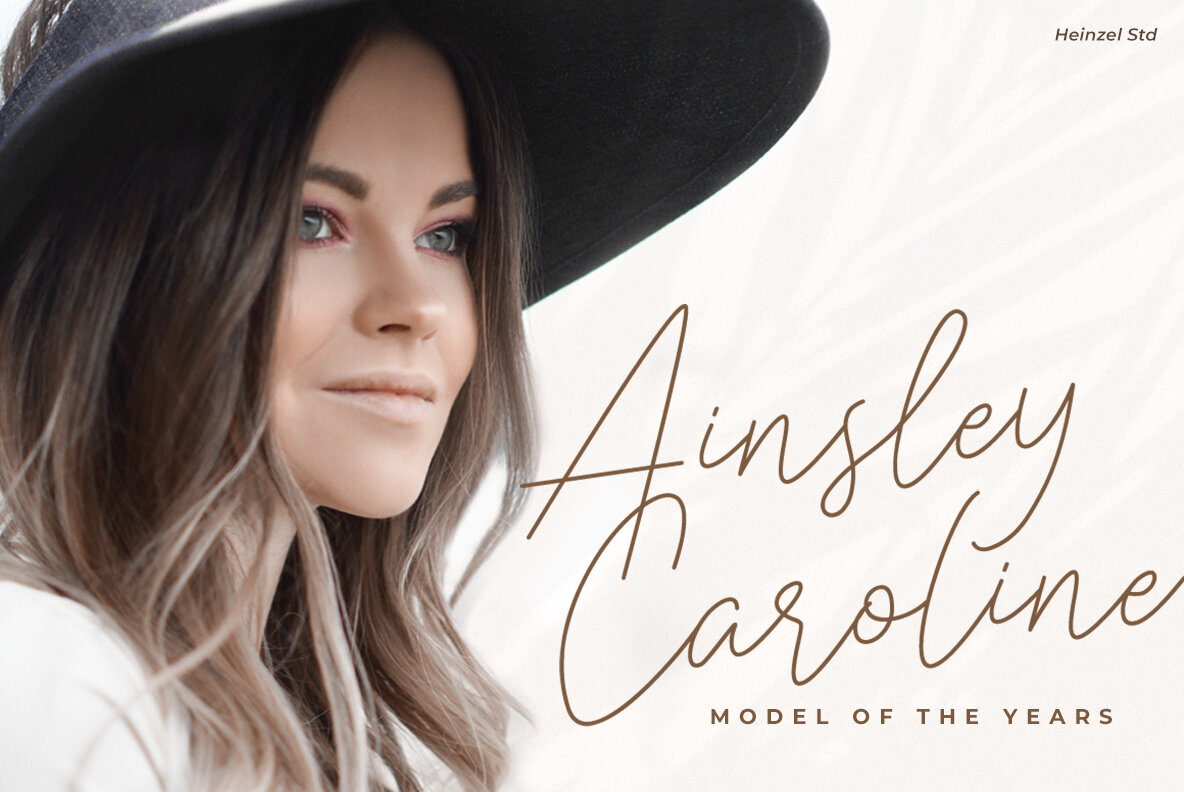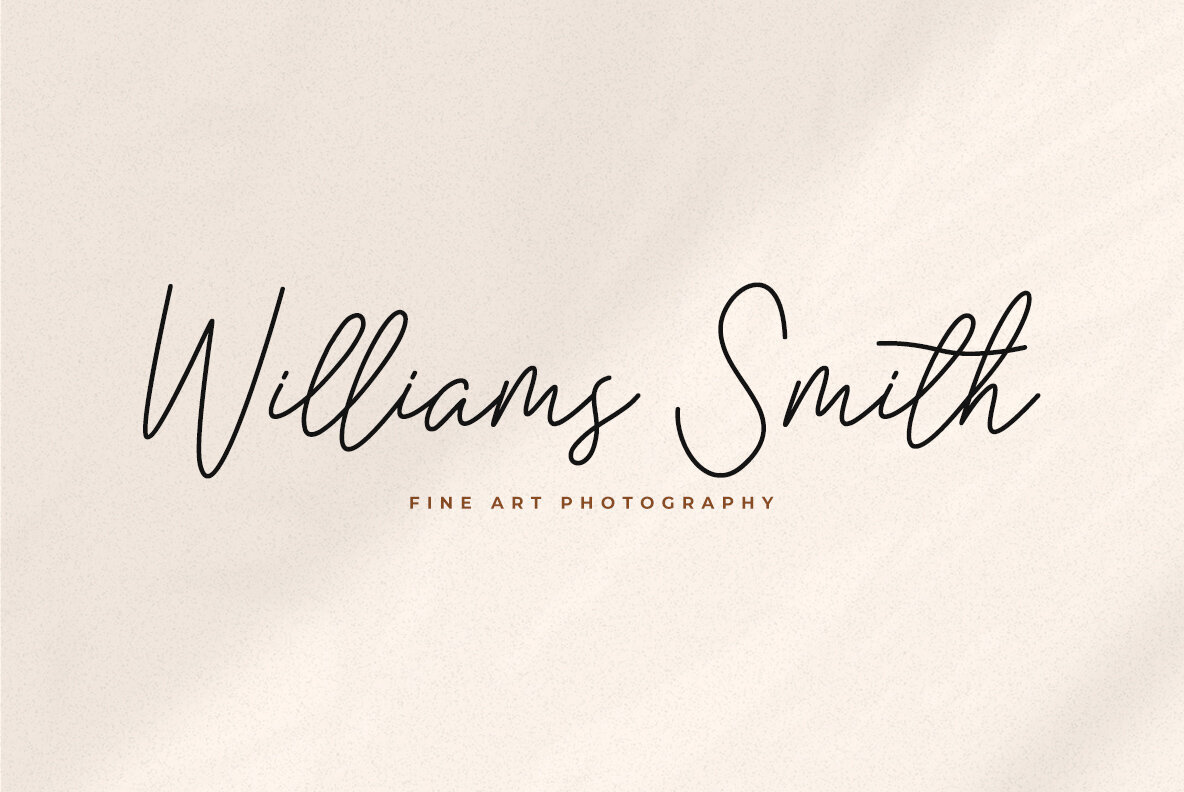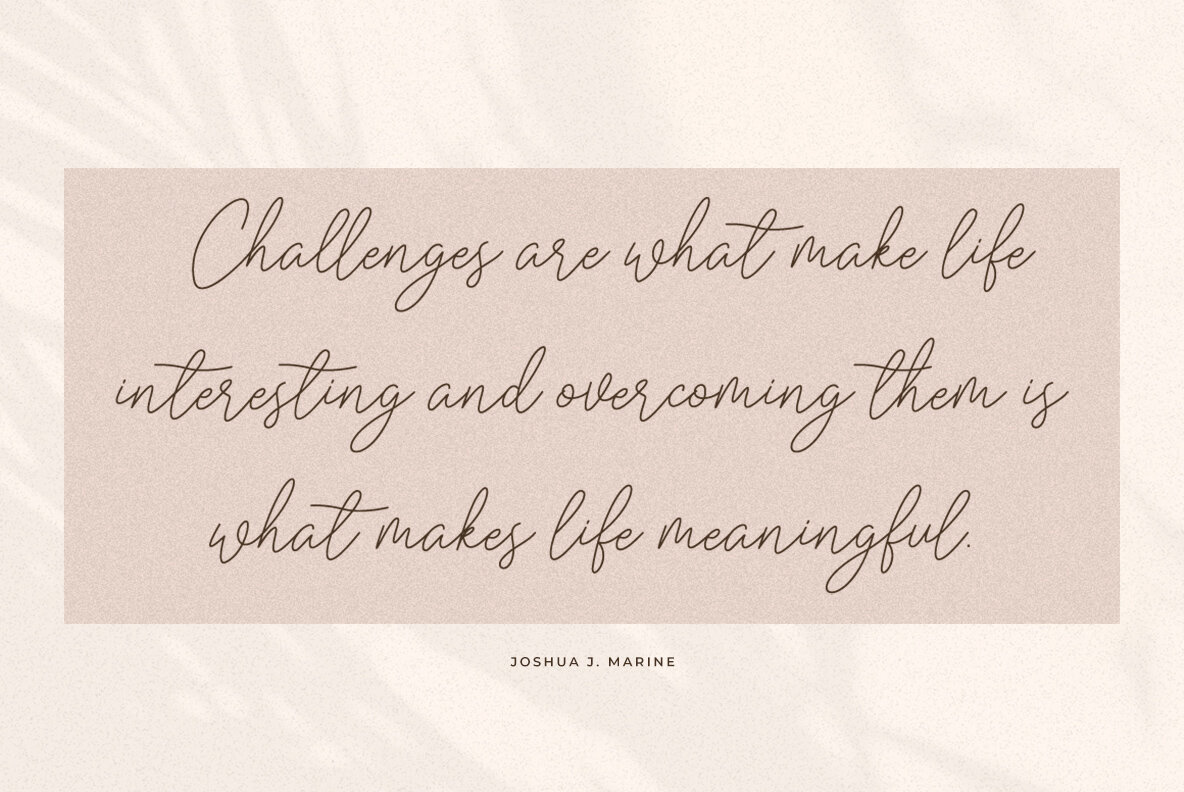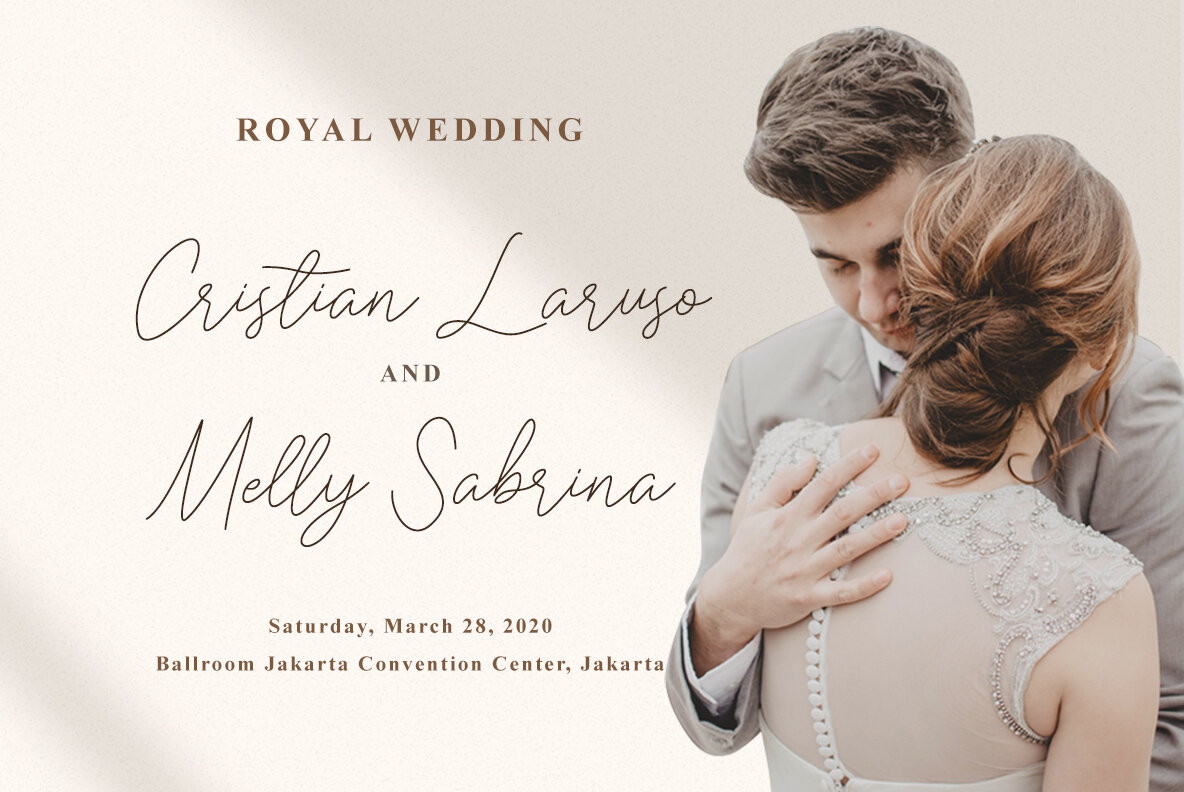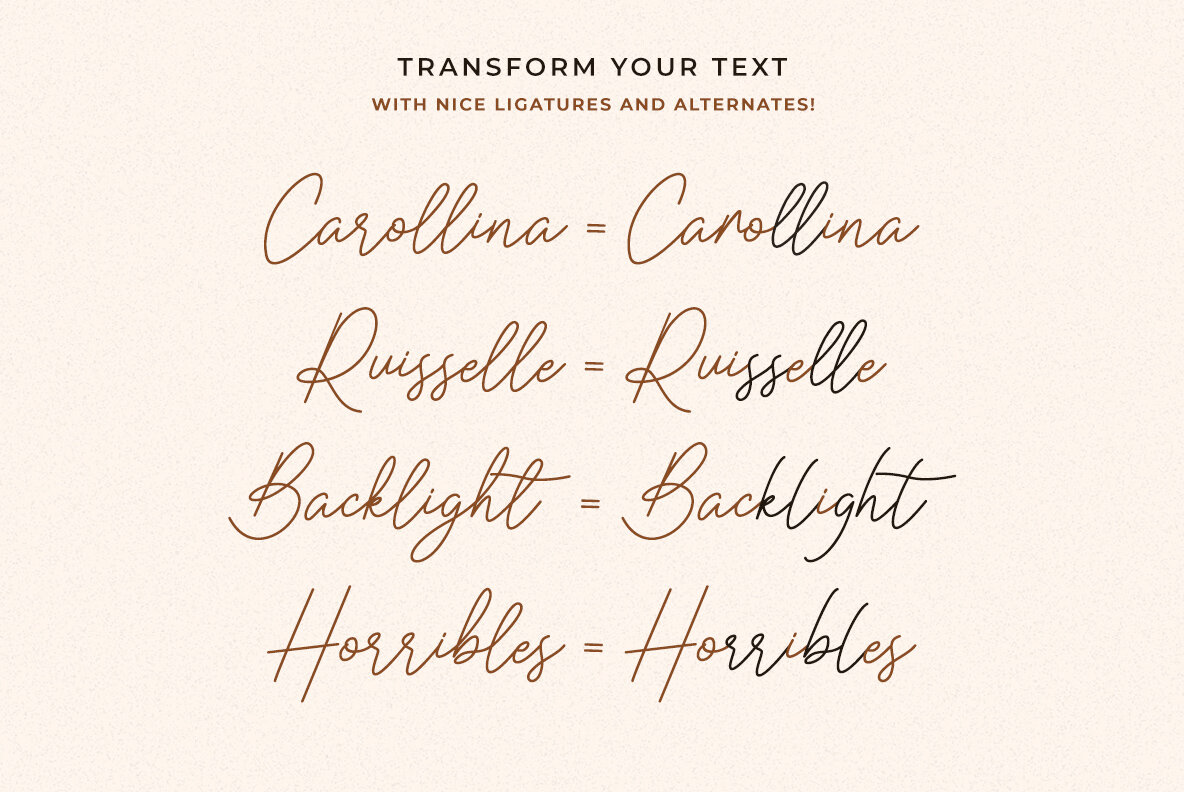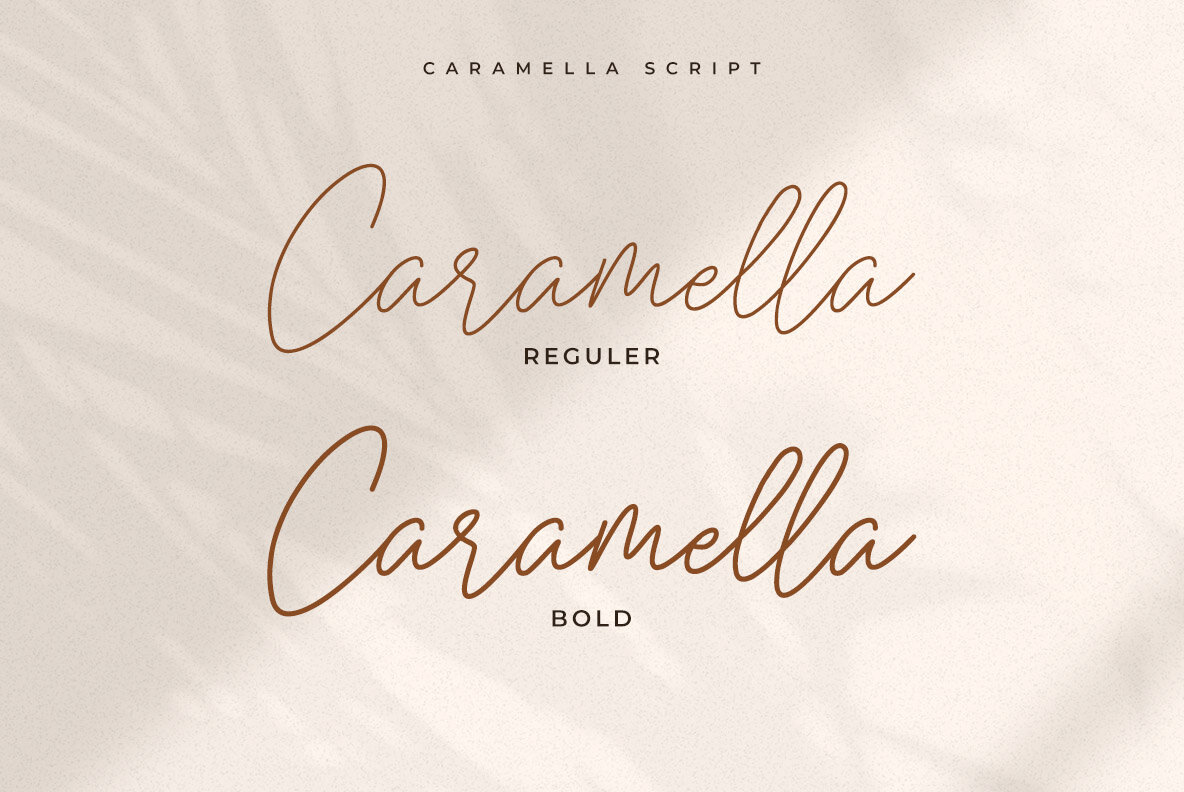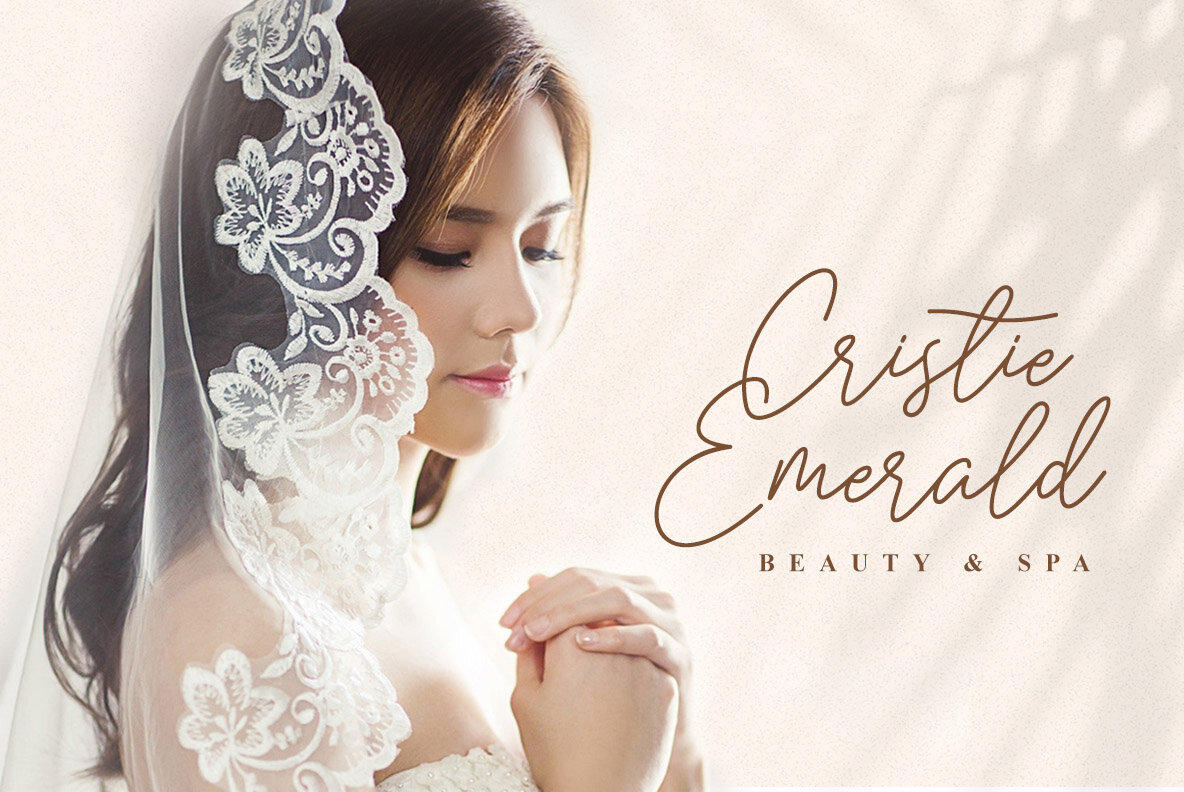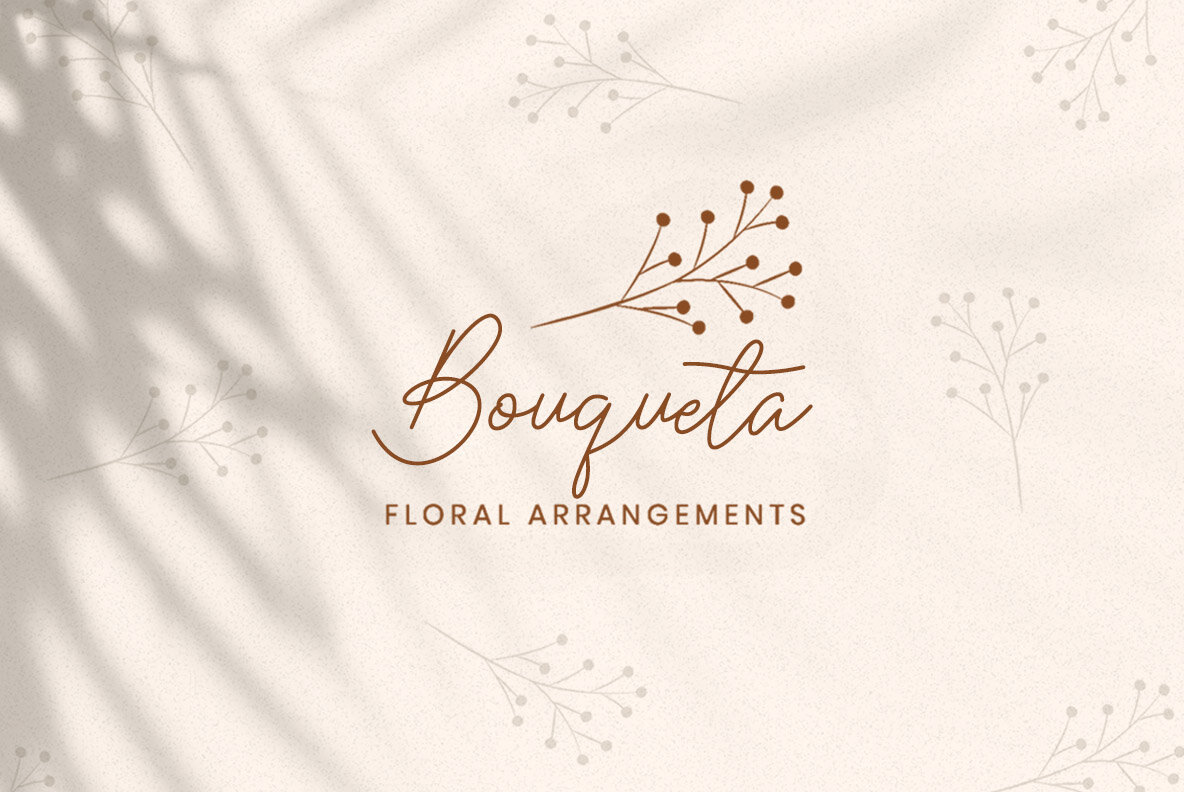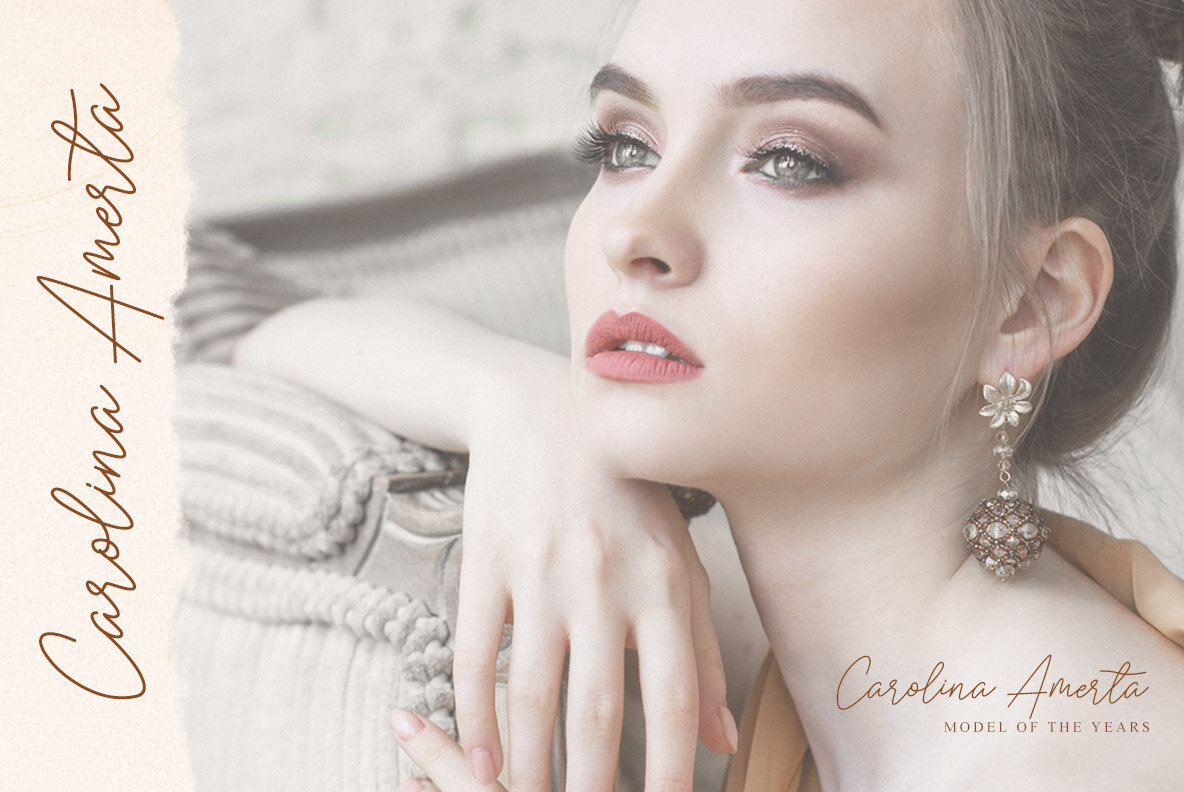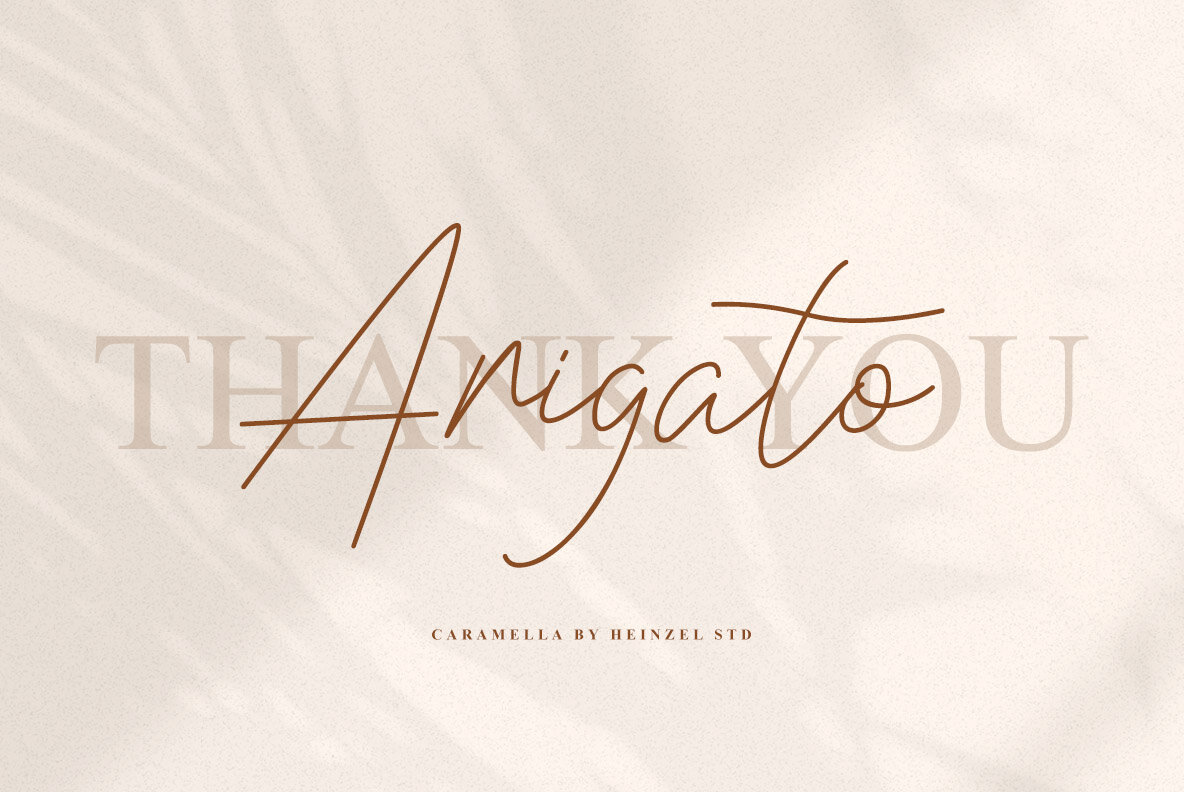
Caramella Font
Caramella simplifies elegance into one truly stunning handwritten font. With its relaxed feel, Caramella is incredibly versatile, suitable to each of the design projects you may have in mind! Use it to create beautiful greeting cards, wedding invitations, logos, website titles and much more!